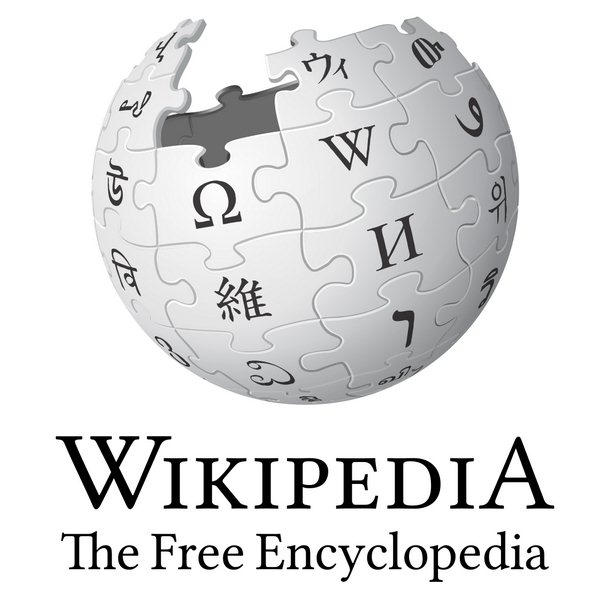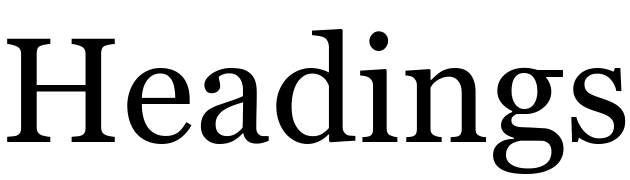
Wikipedia Font
Fonts in UseWikipedia is a free online encyclopedia that aims to provide accurate and reliable information on a wide array of topics. Created and edited by volunteers around the world, it is one of the most popular and comprehensive reference works on the internet.
The Wikipedia logo font uses the free font Linux Libertine Capitals by Philipp H. Poll.
Wikipedia site uses serif fonts like Georgia for headings and sans-serif fonts like Arial for body text to enhance readability and accessibility. Registered users can customize these settings, aligning with the platform's user-centric philosophy. The aim is to make its extensive database of information easily navigable and understandable for a global audience.